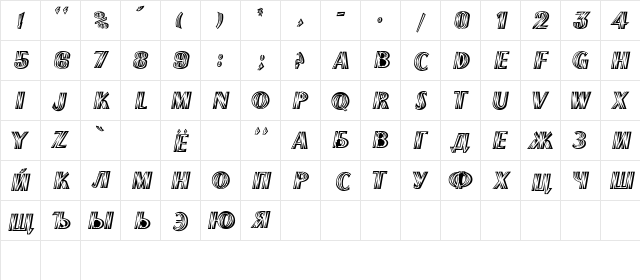
FRENCH FLASH Rus Regular
Design Context for FRENCH FLASH Rus Typeface
FRENCH FLASH Rus is a composed and adaptable typeface that performs quietly and consistently across a wide range of design contexts.